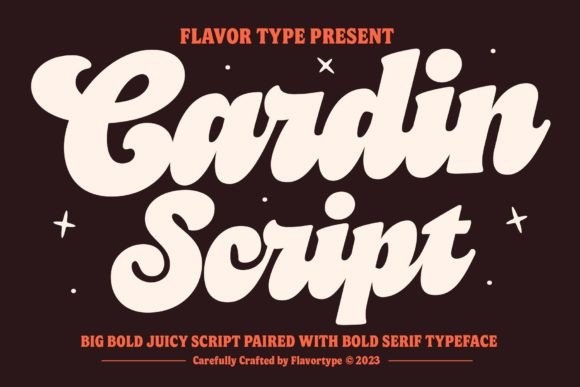
Introducing Cardin Duo Font, the ultimate choice for individuals seeking the best fonts for script tattoos! Created by the renowned flavortype, this font family is a captivating fusion of a dynamic script and a casual serif display. With its bold and juicy appearance, Cardin Duo Font is guaranteed to elevate your designs to new heights.
The script font within the Cardin Duo Font family is a true powerhouse, radiating energy with its fluid and expressive strokes. It effortlessly captures attention and brings your words to life, making it ideal for eye-catching headlines that demand instant recognition. Let your creativity flow as you craft mesmerizing branding materials that leave a lasting impact on your audience.
In addition to the script font, Cardin Duo Font offers a touch of sophistication with its casual serif display. This unique combination adds a subtle yet powerful element to your designs, striking the perfect balance between elegance and creativity. Whether you're working on a professional project or unleashing your artistic side, Cardin Duo Font is your secret weapon for creating visually stunning masterpieces.
Imagine the possibilities that await with Cardin Duo Font. From alluring logos to captivating social media posts, this font family empowers you to express your ideas in an extraordinary way. Its versatility knows no bounds, making it an essential asset for designers, entrepreneurs, and creative enthusiasts alike.